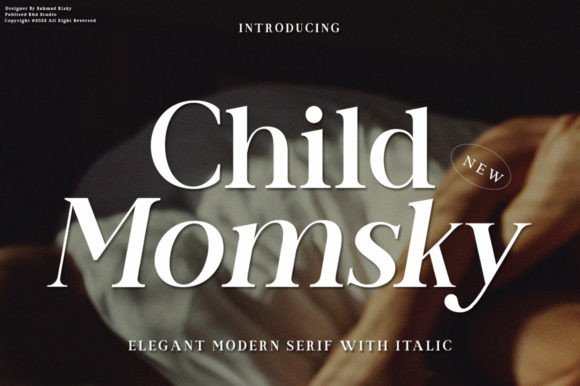
Step into an enchanting world of elegance and sophistication, crafted especially for your wedding monogram. Meet Child Momsky, a captivating serif typeface that will leave you breathless with its timeless beauty. Each letter is a piece of art, flowing with curves and grace that reflect the style and story of your special day.
Experience the harmonious fusion of serif and italic styles, designed to dance together like a majestic waltz. Let the delicate, heartfelt curves of the italic style charm your heart, weaving a tale of love, joy, and togetherness. It's a perfect match for the classic, refined presence of the serif style, creating a captivating visual symphony that speaks volumes.
As if plucked from a fairytale, the Child Momsky font is a testament to the power of typography. Its intricate details evoke a sense of regal elegance, while its graceful lines capture the essence of boundless love. Each letterform is meticulously crafted to enhance the emotions conveyed in your monogram, making it a timeless keepsake that speaks of your eternal bond.
Wedding monograms have long been cherished traditions, symbolizing the intertwining of two souls in matrimony. With the Child Momsky font, you can create a monogram that embodies the essence of your love story. Whether it's for wedding invitations, save-the-date cards, or simply as a breathtaking piece of art in your home, Child Momsky will leave an indelible mark on your hearts and the hearts of all who behold it.
So, embark on this enchanting journey with Child Momsky, and watch as your wedding monogram transforms into a work of art that radiates your love and commitment. Let your creativity take flight as you explore the boundless possibilities of this exquisite typeface. Discover a world of endless elegance and timeless artistry with Child Momsky.